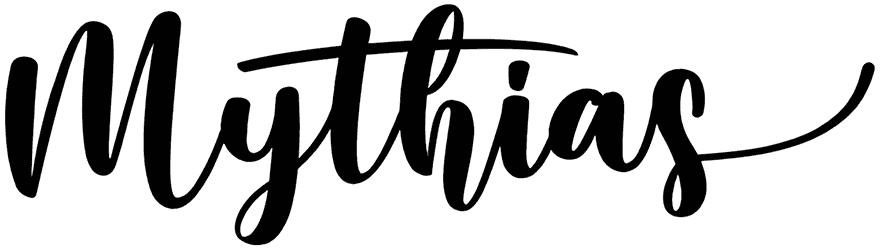
Mythias Font
When your project needs something on the original and stylish side, Mythias is perfect. With its rugged details and smooth curves, this handwritten font is a great choice for designers looking for a stylish brush and want to leave a masterful impression.
This romantic font stands out in website headers, advertisements, greeting cards, and album covers. So if you want to record your writings in history and do not need many changes in the future, add Mythias to your writings.